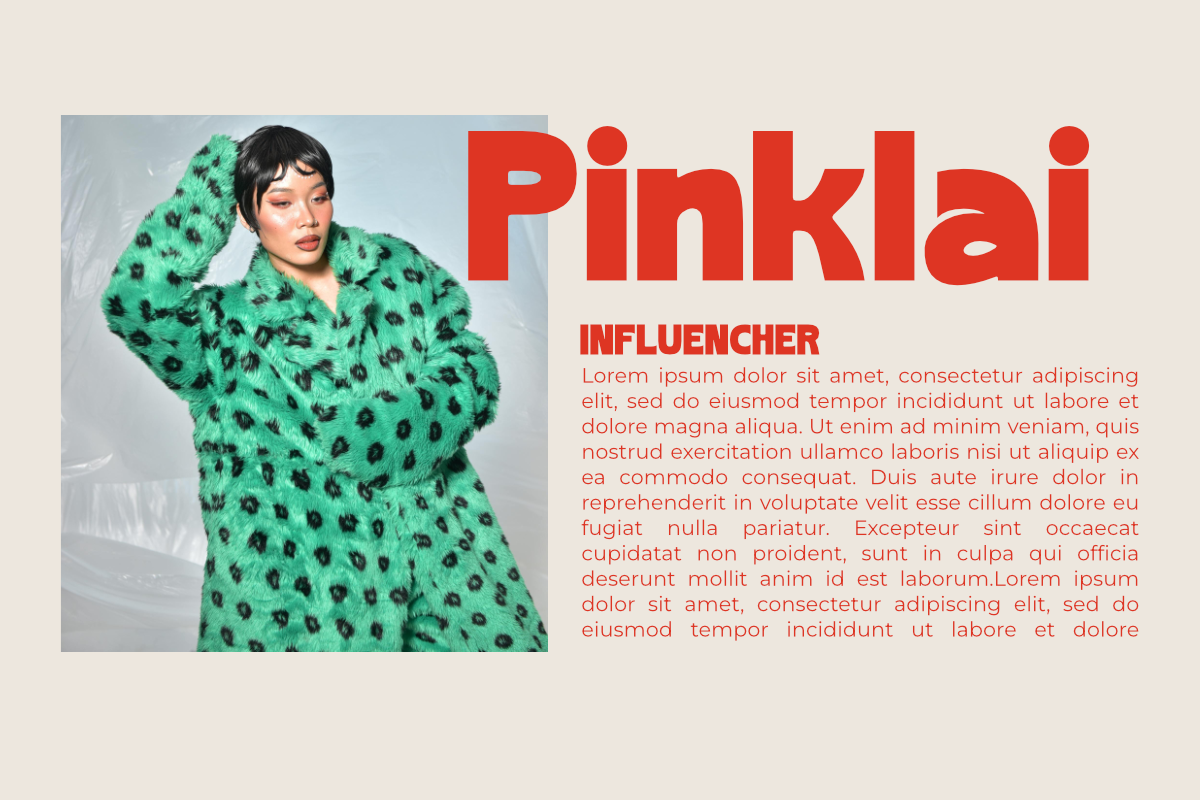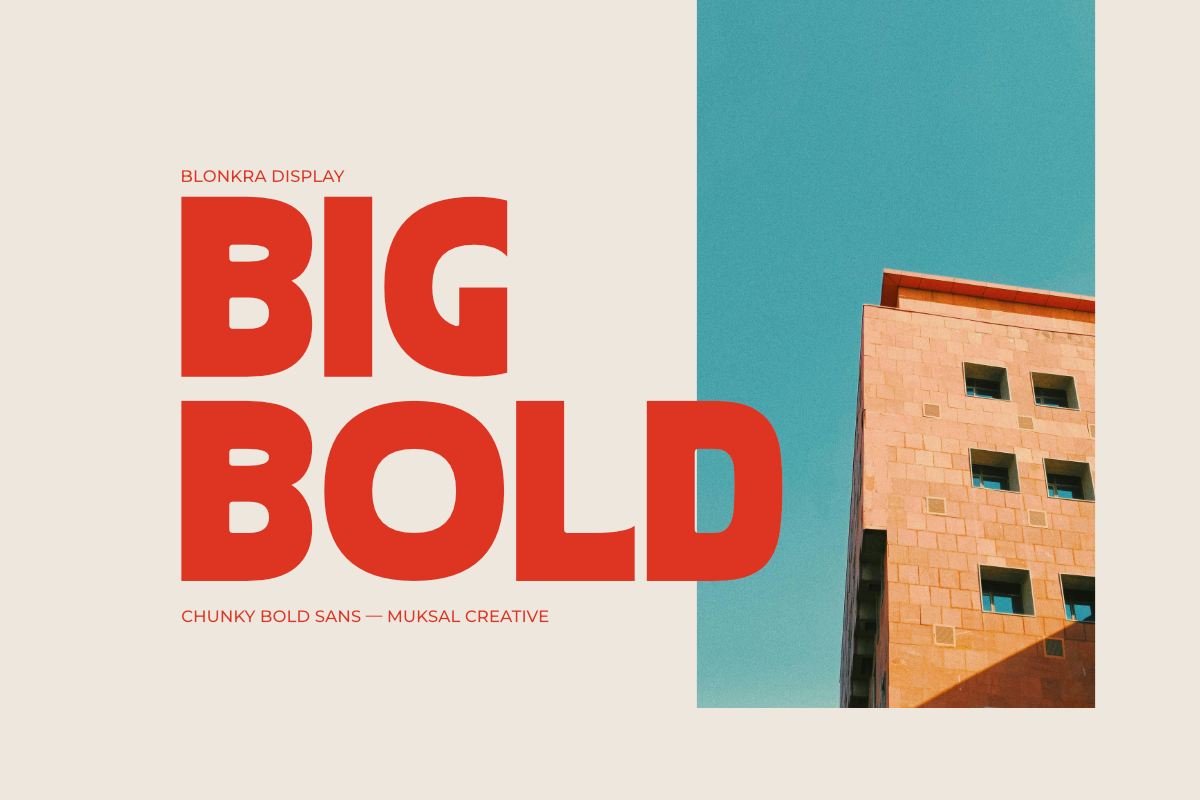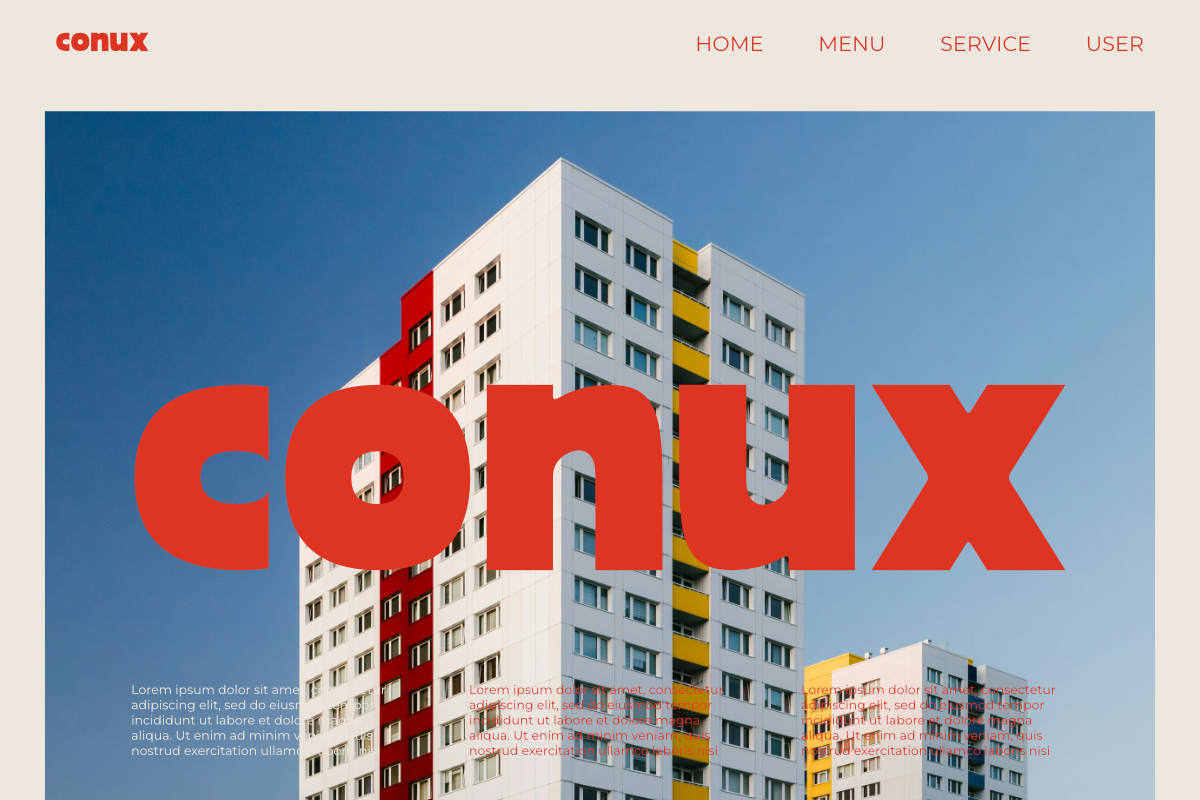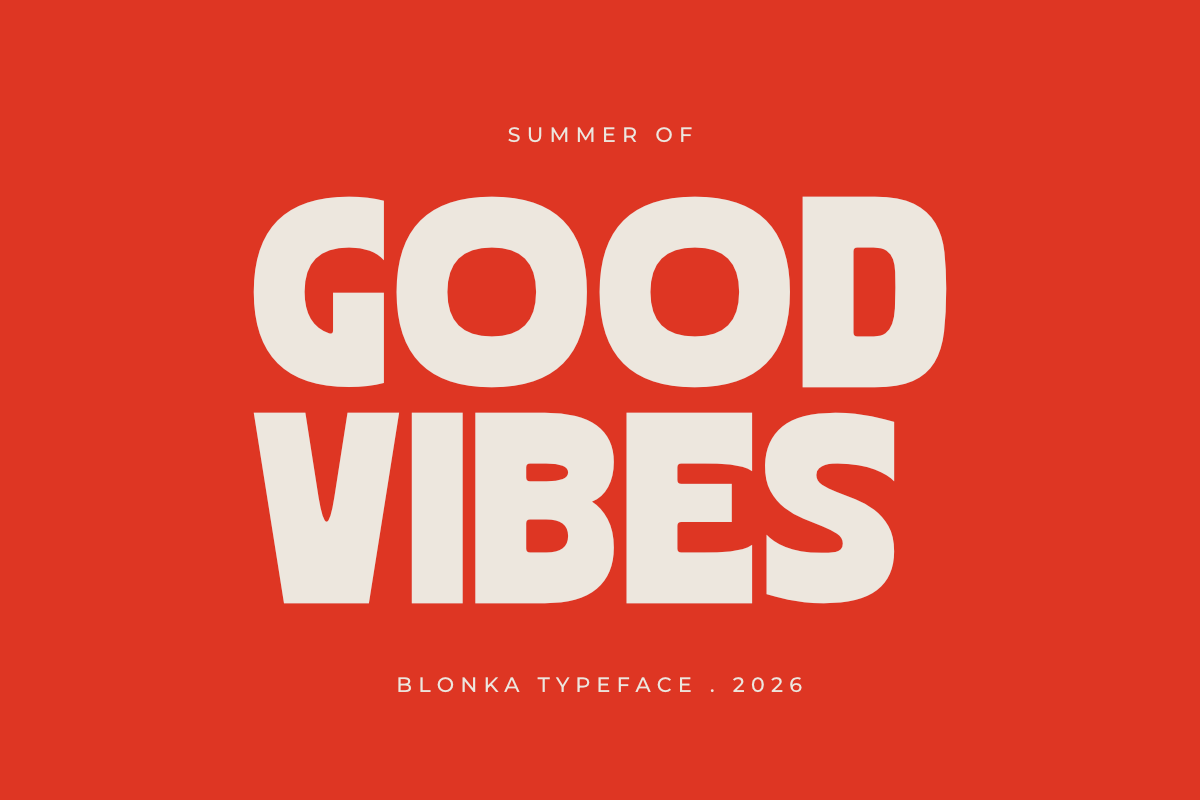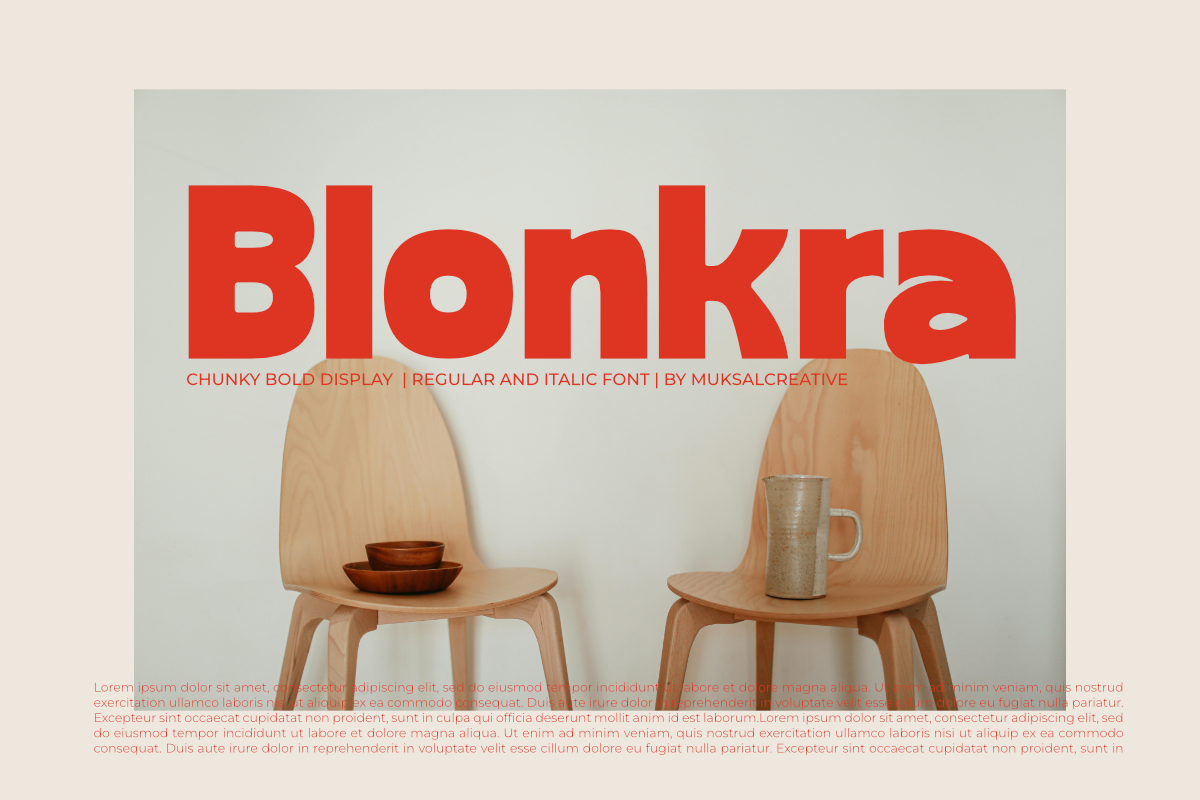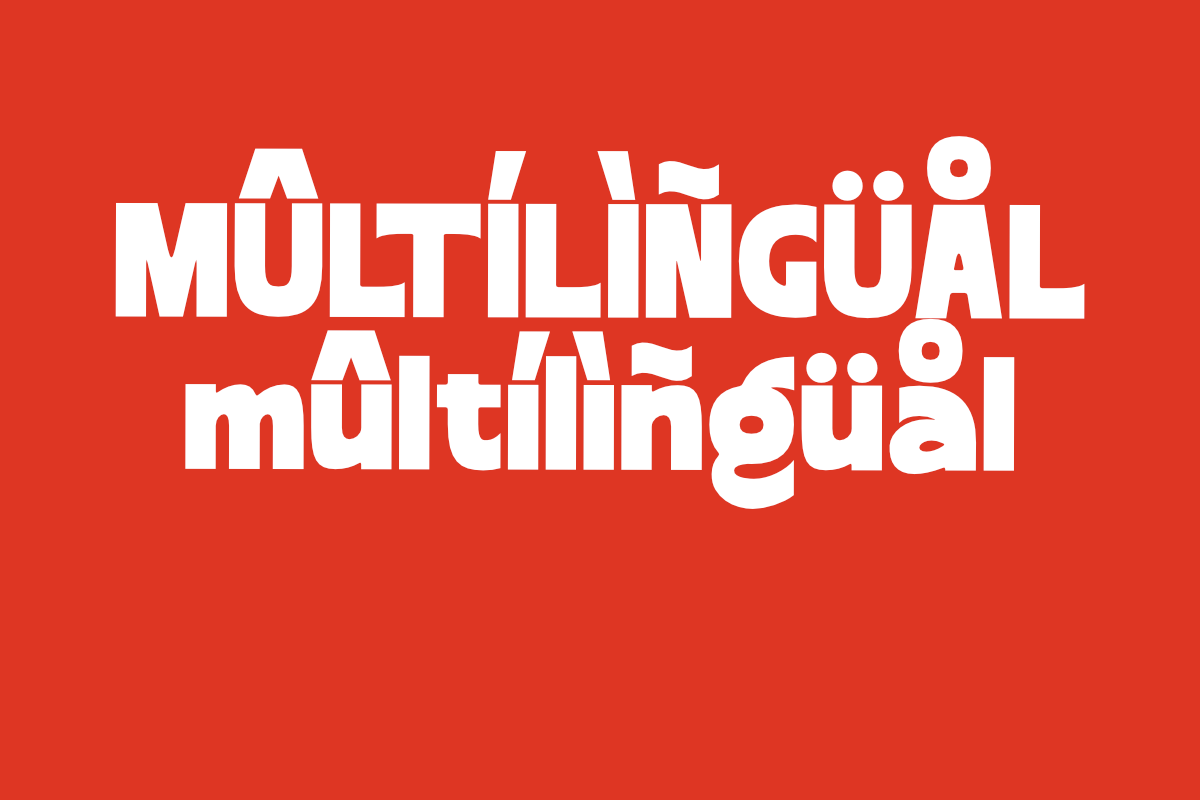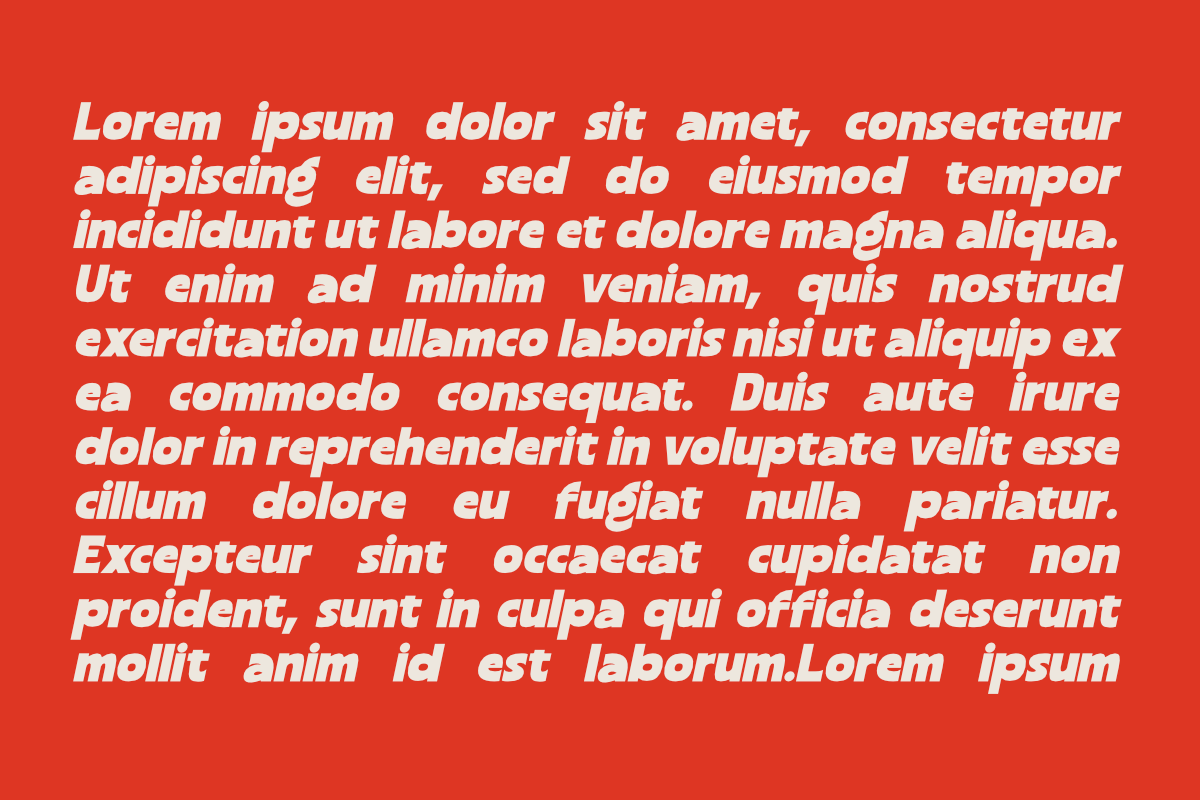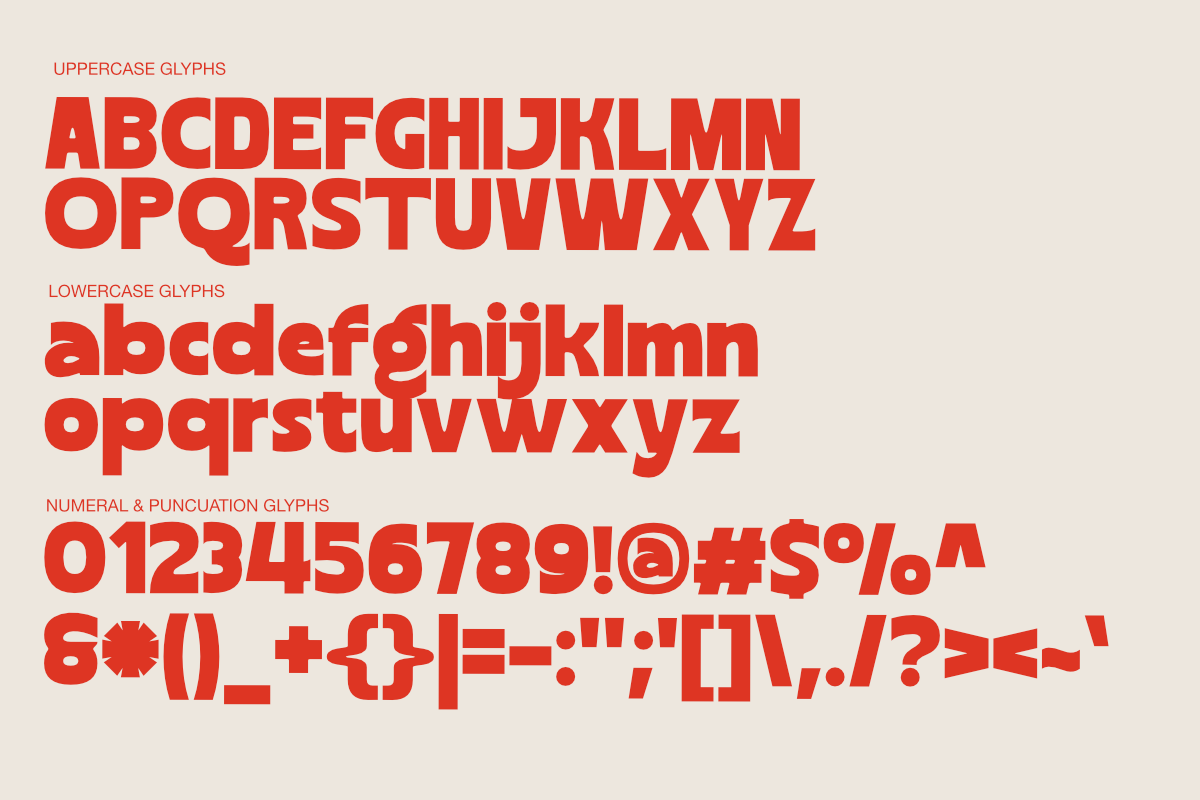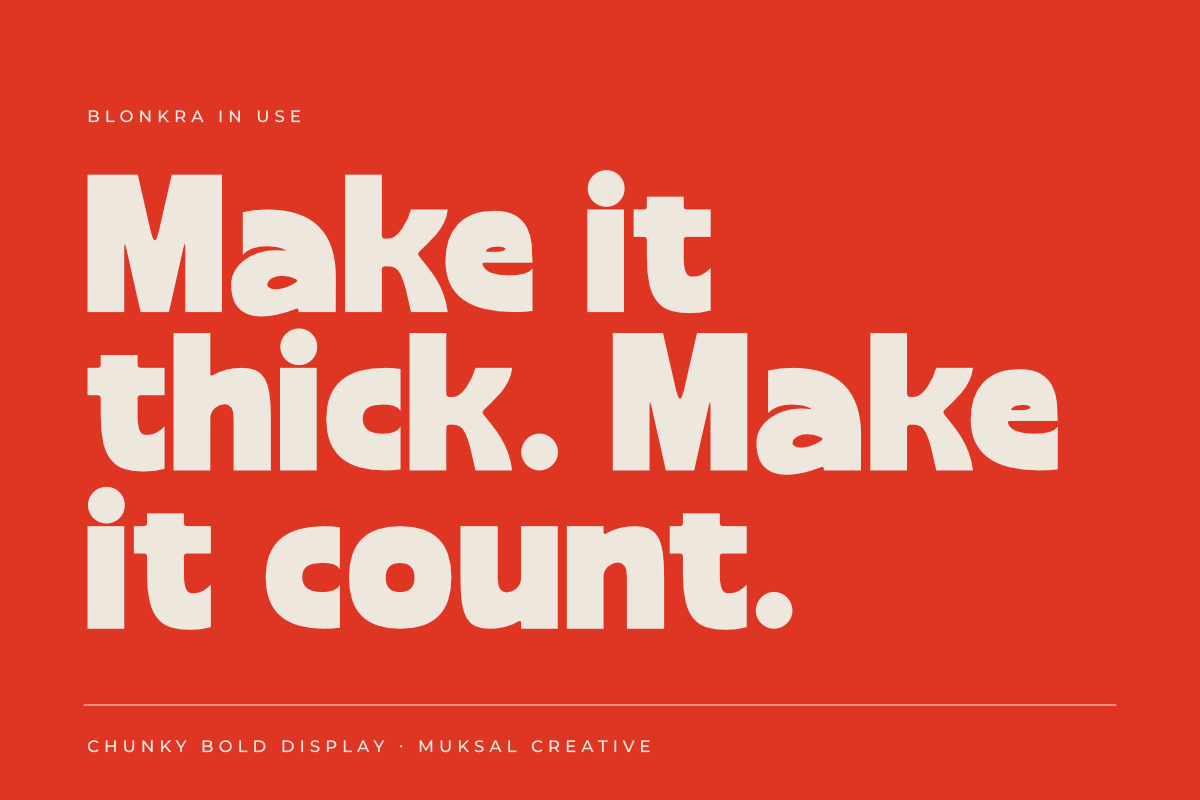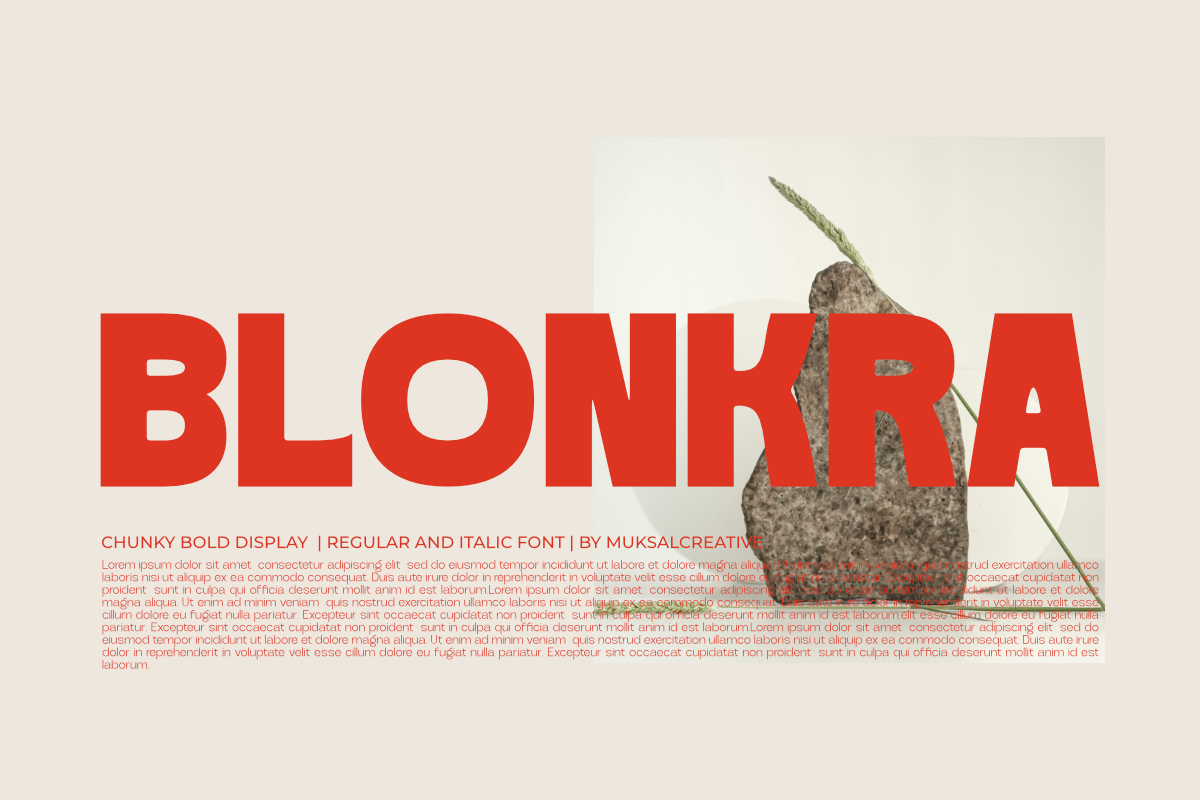
Blonkra – Chunky Bold Sans Font
Blonkra is a chunky bold display sans-serif typeface designed with thick uniform strokes, rounded terminals, and bouncy organic curves. This typeface delivers a warm, energetic, and retro look, making it ideal for food branding, poster design, logo typography, and digital headlines.
Carefully crafted with a high x-height and full rounded letterforms, Blonkra brings a strong retro character to brand identities, product labels, social media compositions, and editorial headlines. Multilingual support included for wide international use.